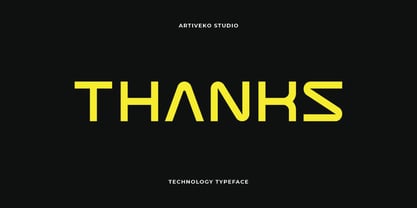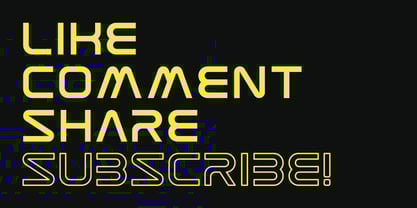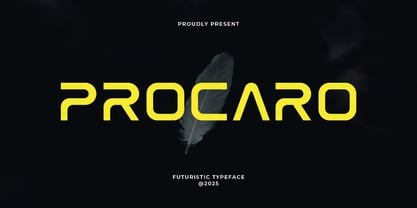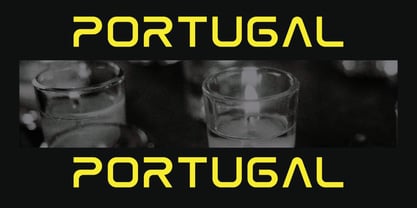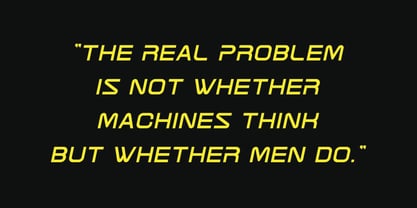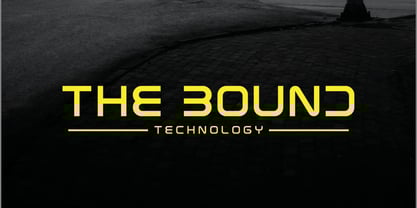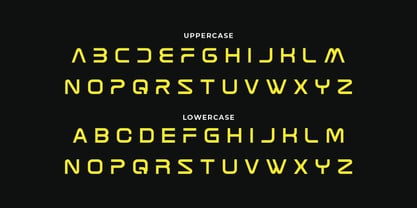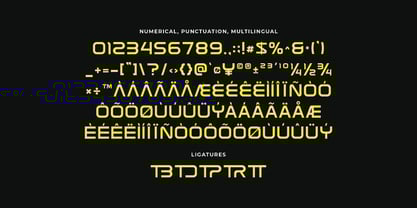
Procaro
by Artiveko
The Procaro Font Family was designed by Iwan Alwan and published by Artiveko. Procaro contains 2 styles and family package options. More about this family
Procaro is a bold geometric tech font crafted for designers who seek precision, symmetry, and a futuristic aesthetic. With its clean construction and sharp edges, Procaro combines modern digital vibes with timeless geometric balance — ideal for technology branding, UI design, esports logos, posters, and sci-fi titles. Each character is built on a strong grid system, ensuring consistent proportions and smooth alignment in every use. The sleek, minimal form delivers a sense of innovation and performance, making your design stand out with confidence and clarity. Perfect for creating modern brand identities, tech interfaces, or digital-themed visuals, Procaro gives every word a forward-looking presence. The font includes uppercase, lowercase, numerals, punctuation, and multilingual support — everything you need to power up your creative toolkit. Step into the future with Procaro, a geometric tech font that defines modern precision and digital sophistication.
Designers: Iwan Alwan
Foundry: Artiveko
Artiveko is a font design team based in Indonesia, comprised of several talented font designers who commenced their careers in the font design industry in 2020. With a dedicated focus on crafting fonts, the team members bring their collective expertise and passion to every project they undertake. Situated in Indonesia, Artiveko draws inspiration from the vibrant cultural landscape of the region, infusing their creations with unique flavors and aesthetics.The team's font collection encompasses a diverse range of styles, including serif, sans serif, handwritten, and script typefaces. Each typeface is meticulously crafted to meet the demands of modern design while offering versatility and functionality across various applications. Whether it's the classic elegance of serif fonts, the contemporary appeal of sans serif designs, the personal touch of handwritten scripts, or the expressive flourishes of script fonts, Artiveko ensures that every font reflects their dedication to quality and innovation.Artiveko's fonts have garnered recognition and acclaim, with their works being featured on prominent social media platforms like Creative Market. Through these platforms, the team has been able to connect with a global audience of designers and typographers, further amplifying their reach and influence in the industry. Their fonts are celebrated for their impeccable craftsmanship, attention to detail, and ability to elevate design projects with style and sophistication.As Artiveko continues to evolve and expand its font collection, the team remains committed to pushing the boundaries of typography and setting new standards of excellence. With a relentless focus on creativity, innovation, and collaboration, Artiveko strives to inspire and empower designers around the world with their distinctive and versatile font designs.